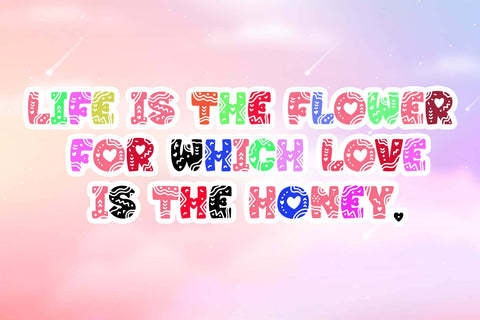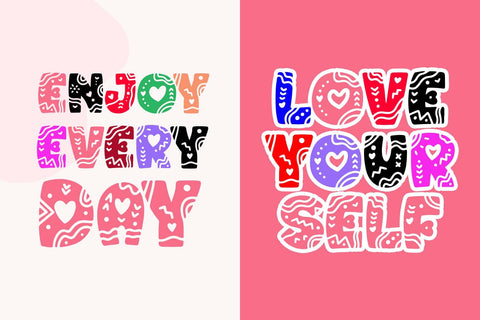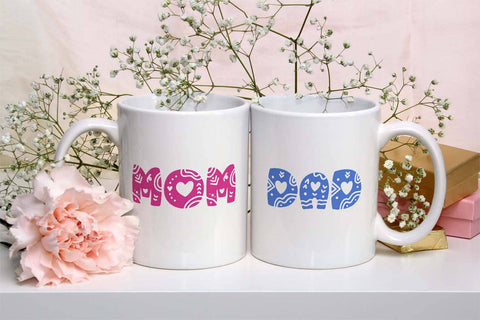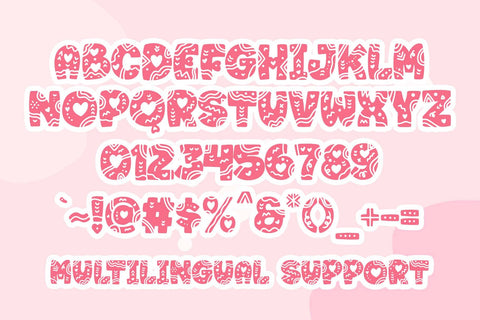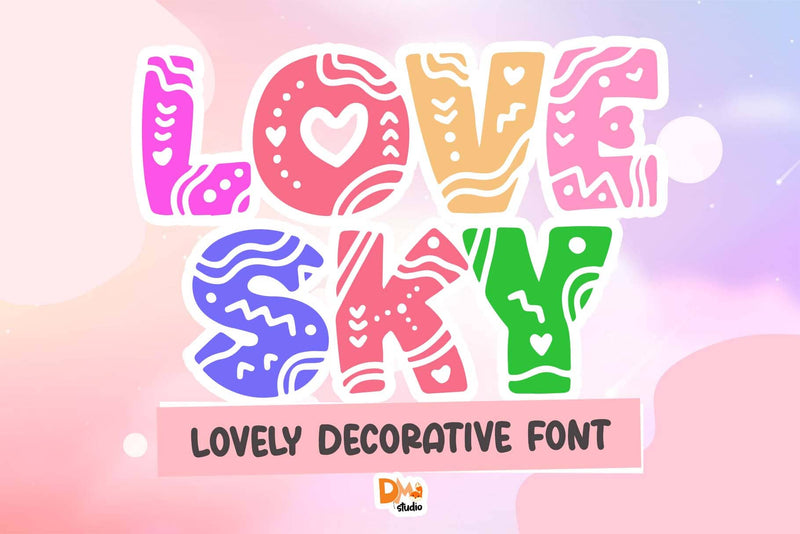
Love Sky Font
Love Sky – Decorative & Whimsical Font
Love Sky is a charming and playful decorative font designed to bring joy and creativity to your projects. With its fun, dreamy letterforms and unique details, this typeface is perfect for Valentine's Day designs, greeting cards, children’s books, social media graphics, branding, and creative projects that need a touch of warmth and whimsy.
- Decorative & Playful Design: Features unique, whimsical letterforms with a fun and dreamy aesthetic.
- Perfect for Love & Celebration Themes: Ideal for Valentine's cards, wedding invitations, branding, and social media posts.
- Lighthearted & Creative Aesthetic: Adds a joyful and uplifting feel to any project.
- Complete Character Set: Includes uppercase, lowercase, numbers, punctuation, and multilingual support.